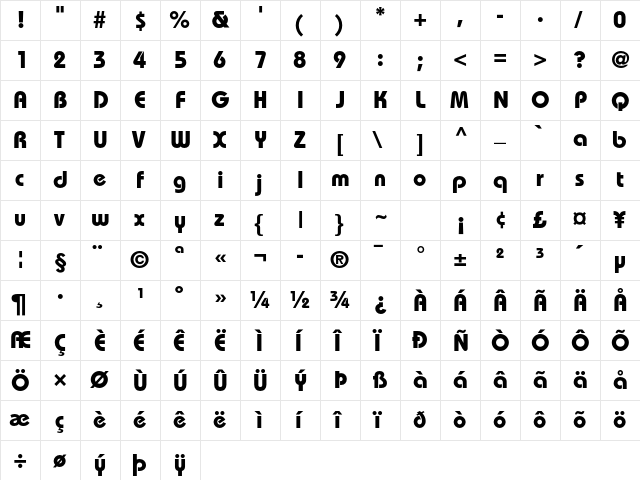
Bauhaus Std Bold
| Designer | Ed Benguiat, Vic Caruso |
Design Context for Bauhaus Std Typeface
Bauhaus Std takes a measured approach to typography — its balanced proportions and neutral character make it a reliable workhorse for both digital and print work. Its bold stroke weight gives it real presence on the page.